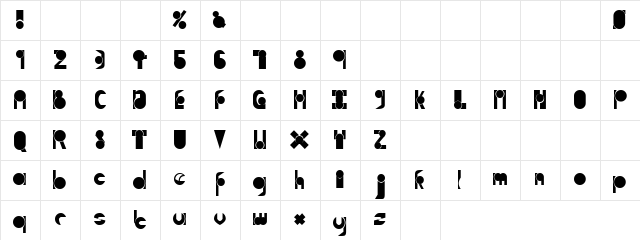
TM Move Aside Normal
Design Context for TM Move Aside
TM Move Aside is a composed and adaptable typeface that performs quietly and consistently across a wide range of design contexts.